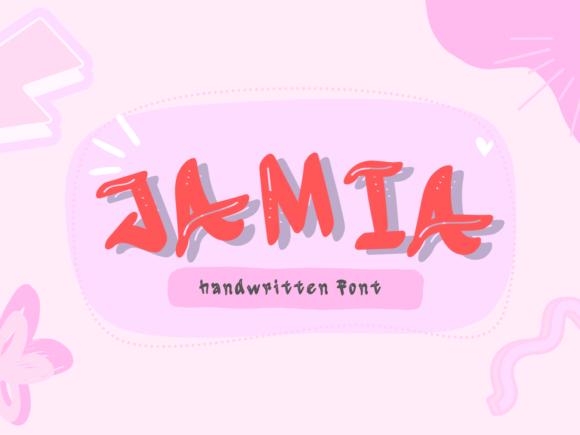
Welcome to the whimsical world of Jamia Font, a script font that captures the essence of fun and playfulness. Embark on a creative journey with this handwritten font, where each letter is a unique expression of artistry. Unleash your imagination and let Jamia bring life to your designs, adding a sprinkle of charm and personality that will leave a lasting impression.
Designed with meticulous attention to detail by the talented Pukka De, Jamia is a font that stands out from the crowd. Its irregular letterforms dance across the page, capturing the essence of handwritten notes and personal touches. The whimsical details, from the swashes to the serifs, add a touch of magic that will transform your designs into captivating works of art.
Whether you're creating greeting cards that warm hearts or social media graphics that spark conversations, Jamia is the perfect font to convey your message with style. Its lighthearted and joyful vibe makes it ideal for adding a personal touch to invitations, branding materials, and any project that calls for a dash of playfulness.
With Jamia Font, you'll discover a world of endless creative possibilities. Its versatility knows no bounds, allowing you to explore a myriad of design styles. Whether you're drawn to the elegance of calligraphy or the carefree spirit of hand-drawn typography, Jamia adapts seamlessly to your vision, becoming an extension of your artistic expression.
So, dive into the world of Jamia Font and let your creativity soar. Embrace the joy of handwritten charm and create designs that resonate with authenticity and personality. Jamia is more than just a font; it's an invitation to let your imagination run wild and create something truly remarkable.
Let Jamia be your creative companion, guiding you through a journey of artistic exploration and self-expression. Discover the magic of handwritten fonts and let your designs bloom with creativity. Jamia is waiting to add a touch of whimsy and charm to your next project, transforming it into a reflection of your unique style.